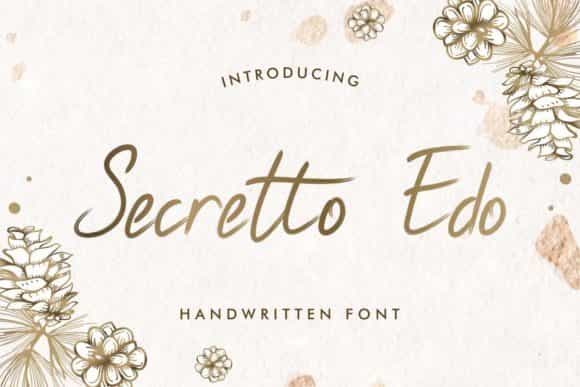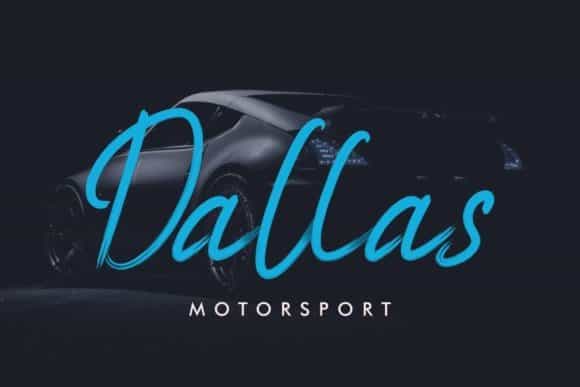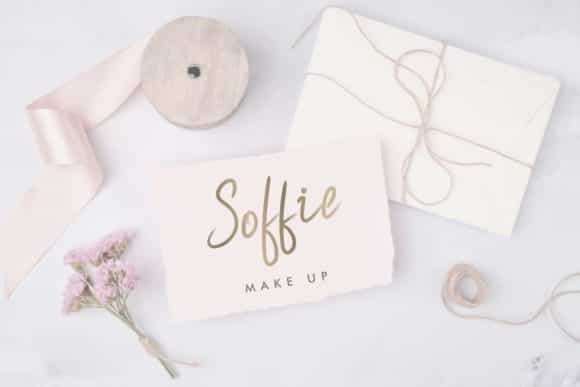
The Secretto Edo Font is a modern script with brush style. This font is a great choice for branding projects, logo design, t-shirt designs, social media posts, advertisements and product packaging as well.